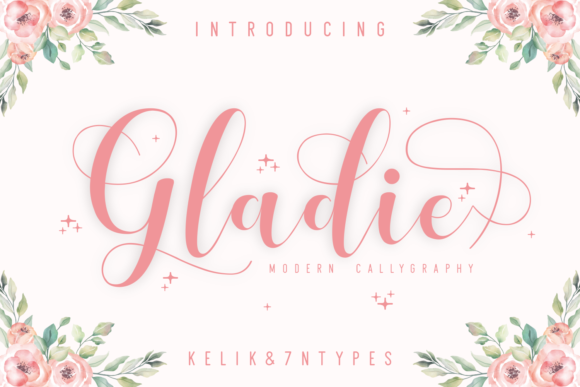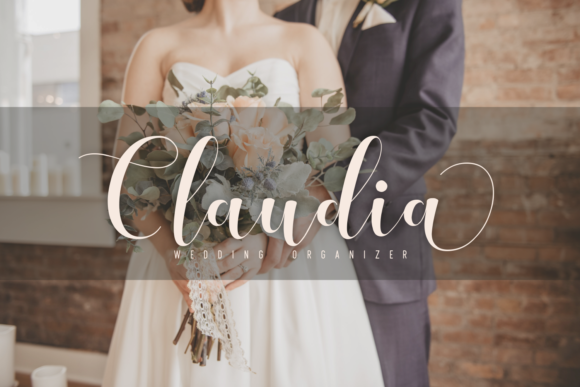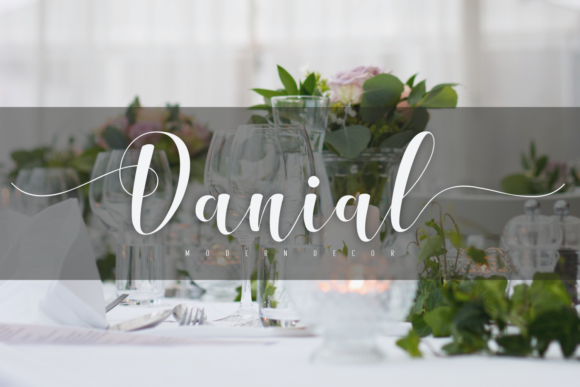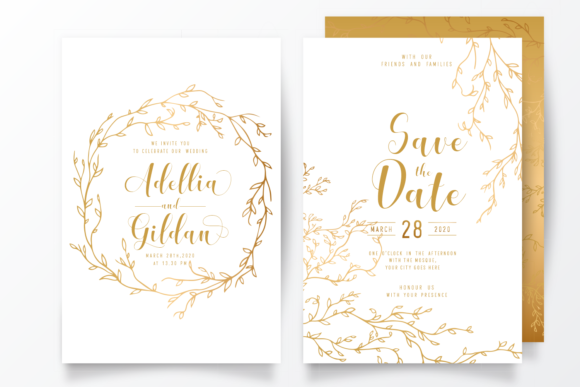
About Gladie Font
Gladie is a magical handwritten font carefully created with a touch of elegance. It features an incredibly classic style, while still keeping a friendly feel. Gladie is the perfect font for making original and outstanding designs. This font is PUA encoded which means you can access all of the amazing glyphs and swashes with ease! It also features a wealth of special features including alternate glyphs and ligatures.